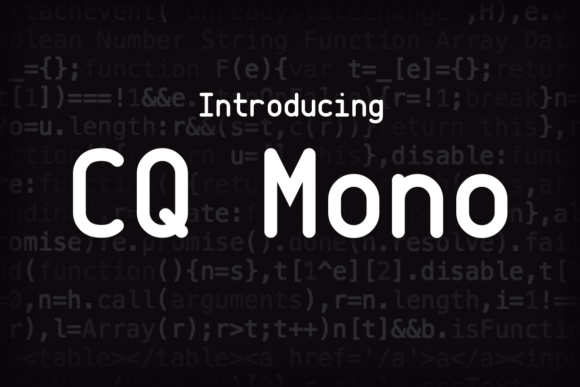
That’s where the CQ Mono Font comes in – a simple yet striking typeface from Chequered Ink that offers a clean slate for your creative endeavors. Designed with purpose, this font is perfect for those who want to add a touch of sophistication and elegance to their designs. Whether you’re working on a branding project, creating a digital product, or crafting a marketing campaign, the CQ Mono Font is an invaluable tool in your design arsenal.
CQ Mono Font Key Features
- Unique Characteristics: CQ Mono Font features a monospaced design with a clean and minimalist aesthetic, making it ideal for coding, typing, and other applications where readability is crucial.
CQ Mono Font Review
I’ve had the chance to work with the CQ Mono Font, and I must say it’s a solid addition to any designer’s toolkit. Here’s what I like and don’t like about it.
- Monospaced typography: The CQ Mono Font does a great job of maintaining a consistent width across all characters, making it perfect for coding, terminal interfaces, and other applications where readability is key.
- Neutral design: The font’s design is clean and unobtrusive, allowing it to blend seamlessly into any UI or design system.
- High-quality rendering: The font renders beautifully at various font sizes and resolutions, making it a great choice for both digital and print projects.
- Limited stylistic variations: While the font is well-designed, it may feel a bit bland to those looking for a font with more personality or flair.
- No bold or italic weights: The font only comes in regular and bold weights, which may limit its use in certain design contexts.
Overall, the CQ Mono Font is a reliable and well-crafted font that excels in its intended use cases. While it may not be the most exciting font in the world, it’s a solid choice for designers who value simplicity and readability.
For optimal results, use CQ Mono Font for:
- Technical and programming-related content
- Monospaced text, such as code snippets or programming examples
- Minimalist and modern designs that require a clean, sans-serif font
Remember to adjust the font size and color to ensure readability and visual appeal.
Q: Is the CQ Mono Font available in different weights and styles?
Yes, the CQ Mono Font is available in multiple weights, including light, regular, medium, and bold, as well as italics. This allows designers and developers to choose the perfect font to match their project’s requirements and aesthetic.